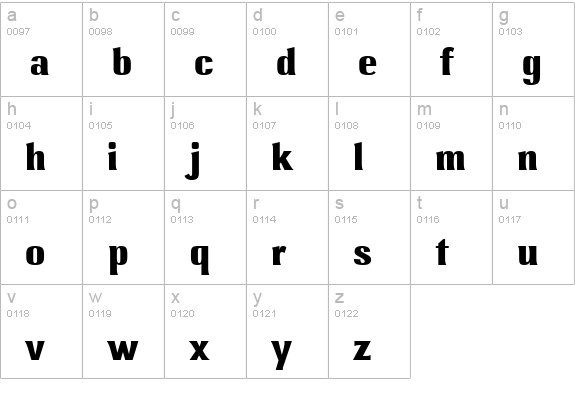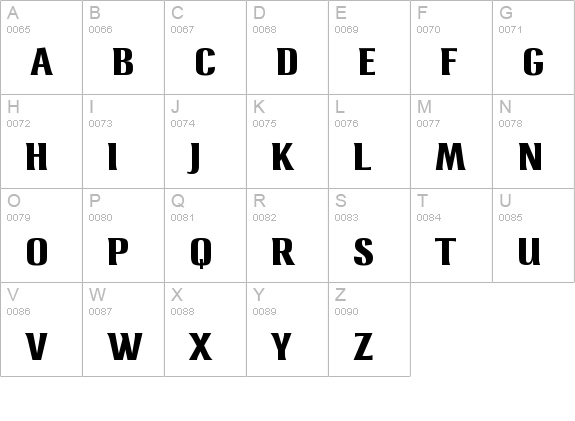
LennoxITC TT Bold Font Details
LennoxITC TT Bold is a strong, high-contrast variant in the LennoxITC typeface family \xE2\x80\x94 well suited to headlines, attention-grabbing titles, and strong calls-to-action.
LennoxITC TT Bold is a striking and charismatic font that exudes a sense of power and confidence. Its bold and assertive letterforms command attention and make a strong impact in any design or project. This font is not only visually captivating but also highly versatile, making it suitable for a wide range of applications. Whether you're designing a poster, creating a logo, or crafting a headline, LennoxITC TT Bold will make your text stand out and leave a lasting impression. One of the best things about LennoxITC TT Bold is that it is freely available to download at FontsMarket.com. This means that you can easily access and utilize this remarkable font without any hassle or cost. With its sleek and modern aesthetic, LennoxITC TT Bold brings a contemporary and professional touch to your designs. Its clean lines and well-defined curves give it a polished and refined appearance, making it perfect for both print and digital media. The robust and bold nature of LennoxITC TT Bold makes it ideal for emphasizing important information or creating impactful headlines. Its strong presence on the page ensures that your message is delivered with clarity and authority. Whether you're a graphic designer, a branding specialist, or simply someone who appreciates beautiful typography, LennoxITC TT Bold is a must-have addition to your font collection. Its timeless appeal and expressive qualities make it a font that will never go out of style. So why wait? Enhance your designs and make a statement with LennoxITC TT Bold. Download it for free at FontsMarket.com and unleash the full potential of this captivating font.